Positioning a Font as a Foundation for Branding
Toyo Kitchen & Living (hereafter “Toyo Kitchen”) does not sell kitchens as mere sets of appliances; it positions them at the heart of social activity in the home on the theme “life in and around the kitchen,” and proposes a range of unique creations that are worlds apart from the products of other manufacturers. In recent years, Toyo Kitchen has also been introducing the furniture and lighting fixtures of overseas brands. In common among these products, in addition to functionality, is their high quality as interior objects.
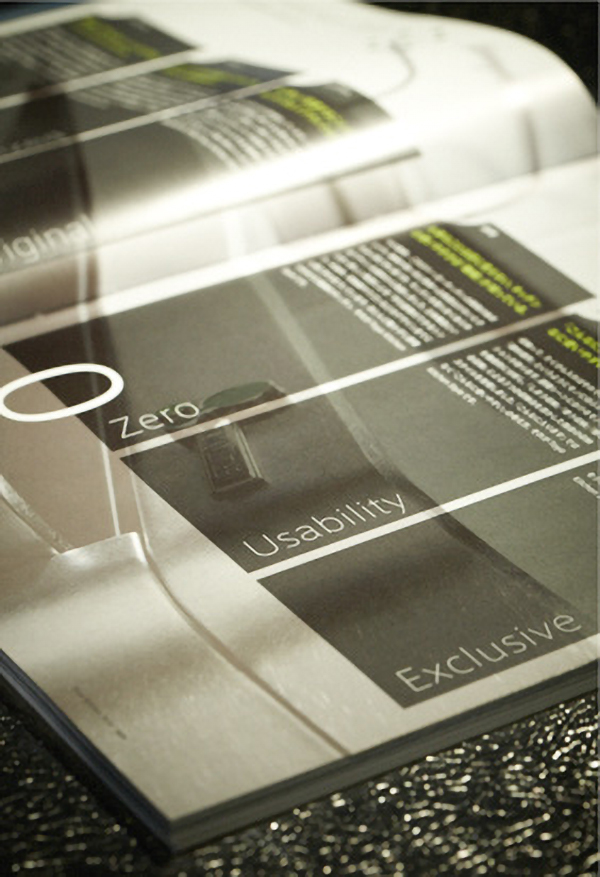
At present, Toyo Kitchen is using the AXIS Font for many of its productions, such as catalogs, digital media, banners in showrooms, point of purchase (POP) panels, and websites. Masahiko Tsuji, Toyo Kitchen’s CEO and supervisor of the marketing department, gives his reasons for using the font.
In 2004 Toyo Kitchen published a book titled At the Heart of Life and a catalog titled Kitchen is the Heart of Life. These occasions were the first time we used the AXIS Font. Although the decision was also made based on outside opinion input, I myself am a long-time reader of AXIS, am intimately familiar with the design of the magazine, and place a great deal of trust in it, so I gave my OK immediately.”
In 2003, Tsuji, who had been working at the company’s Milan design department, joined Toyo Kitchen’s marketing department when it was launched. Previously, the tone and manner of the company’s products was inconsistent, and Tsuji felt the need for something that could serve as the central core of the brand when presenting Toyo Kitchen’s image.
“The book and catalog we completed in 2004 were very fresh and refined compared with our past catalogs. They were cool, yet friendly. The AXIS Font is not only beautiful as a graphic, I felt it was perfect for the stainless kitchens we handled.”
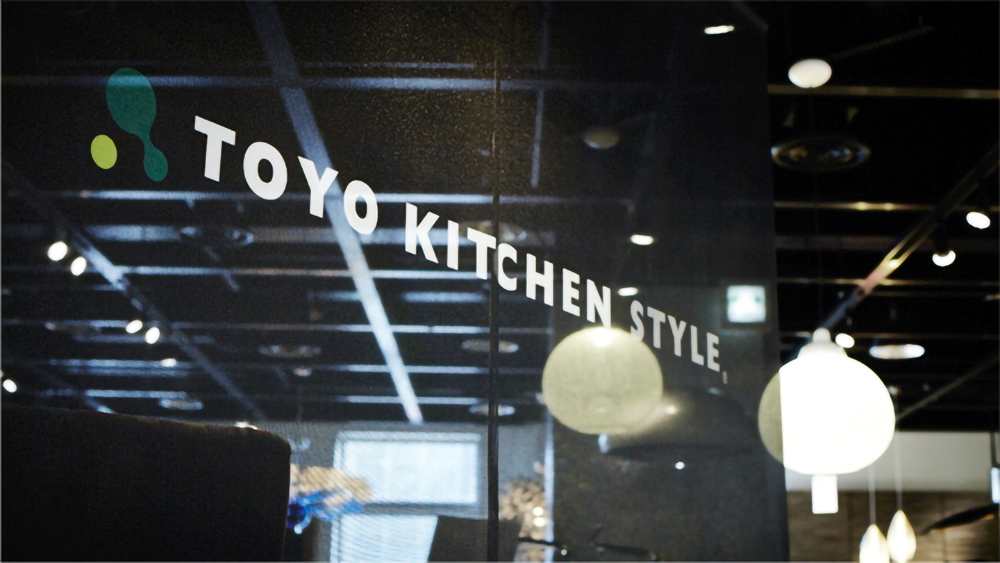
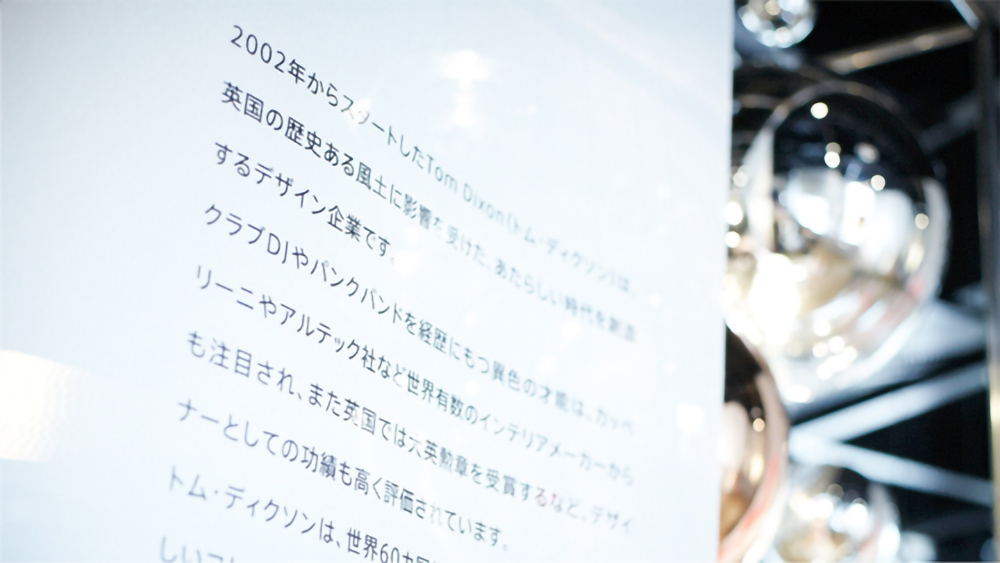
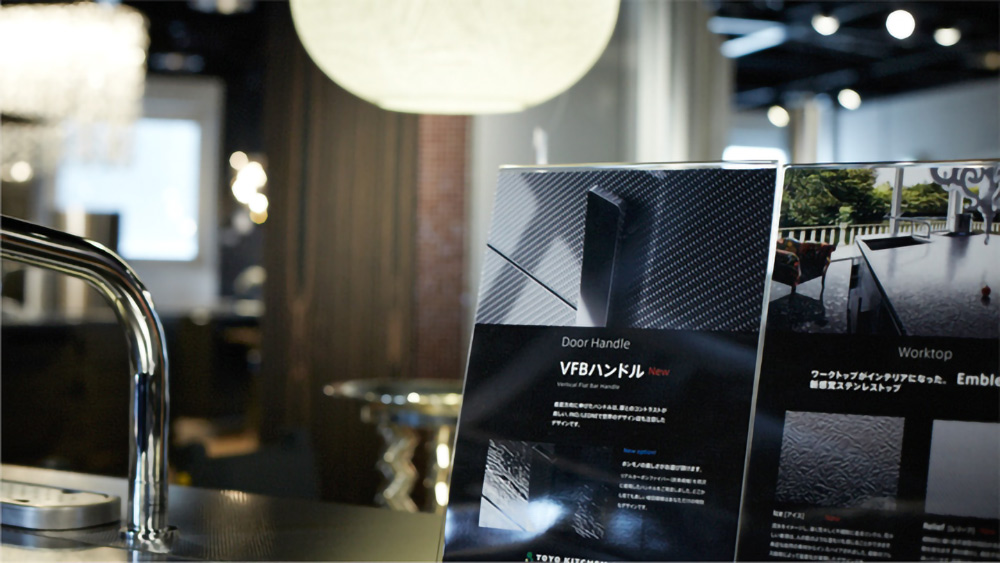
Masahiko Tsuji came up with the idea of using the AXIS Font as the foundation for Toyo Kitchen’s branding, and decided to introduce it into the company. He began with Toyo Kitchen’s website, which was being updated, and proceeded with standardizing all the fonts used by the company. Toyo Kitchen hires various design offices for catalogs and pamphlets, but the rule is to always use the AXIS Font.
The AXIS Font is also used everywhere in Toyo Kitchen showrooms. Tsuji explains that in shops with unique lighting, furniture, and mosaic tiles on display in the kitchen, it’s effective to match it all with the tone of the POP panels and their standardized fonts. There are cases where the alphabet and Japanese are both used, and the AXIS Font utilizes special characteristics developed with bilingual layouts in mind.
“In the showrooms we use the AXIS Font for large catch copy expressions in addition to POP. The AXIS Font is available in various weights, and is very convenient as it’s not limited to any one particular expression. We also used the AXIS Font in designing the logo for our new showroom LUCE that we opened in Aoyama in late September. We expanded the space between the letters in the condensed font to impart a fresh, spacious image. The showroom itself was designed by Kazuyo Sejima, who linked it with that image of space.”
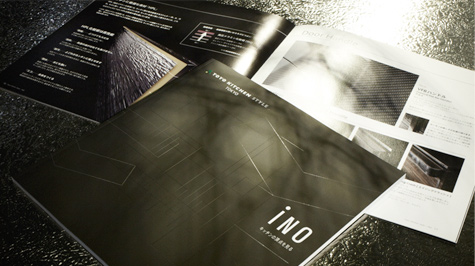
Toyo Kitchen has made it a rule from last fiscal year to use the AXIS Font for in-house documents and study group materials that will not be released outside the company. Tsuji says this is an attempt to raise the consciousness of the employees regarding the brand.
“At present the number of new homes under construction in Japan is under 800,000 units a year, less than half that during the peak. In this austere environment, many kitchen manufacturers have been forced into competition. Toyo Kitchen, however, showed increased profits in fiscal 2011. This is because we see the kitchen not as a cooking facility but as a broader context for living a rich, satisfying lifestyle. From here on, in order to galvanize our staff and propose greater affluence and added value, we intend to exert great care in realizing unity of purpose. I believe that the font we see can also be effective because of this.”
Tsuji says he would like to see the AXIS Font made in the Ming-style typeface. He believes the Ming-style typeface is suitable for powerful written invitations, and that there is a demand for this.
“I’ve gradually come to realize that fonts function somewhat akin to a voice for the customers who are reading our texts. Fonts have a characteristic tone, volume, and individuality. The voice of the AXIS Font is simple, yet flexible, refined, and of high quality. Those are precisely the qualities that it shares with Toyo Kitchen.”